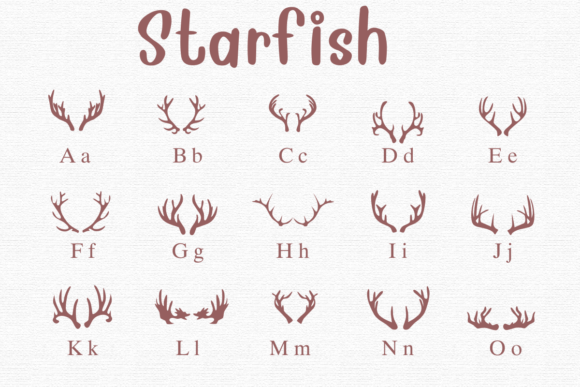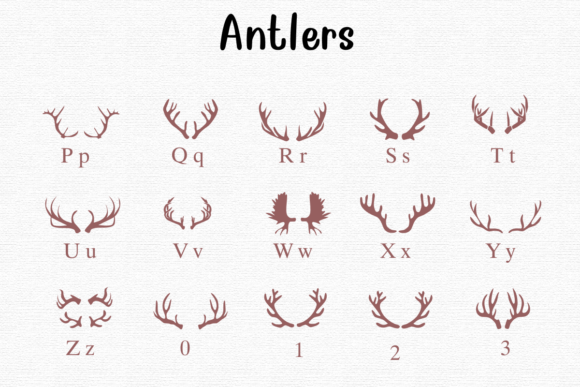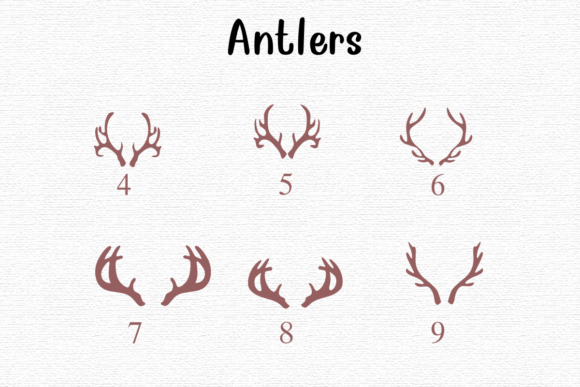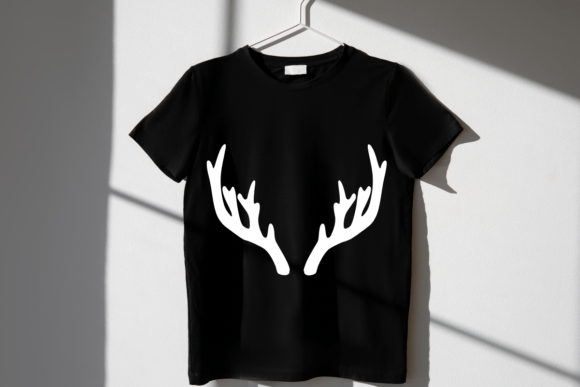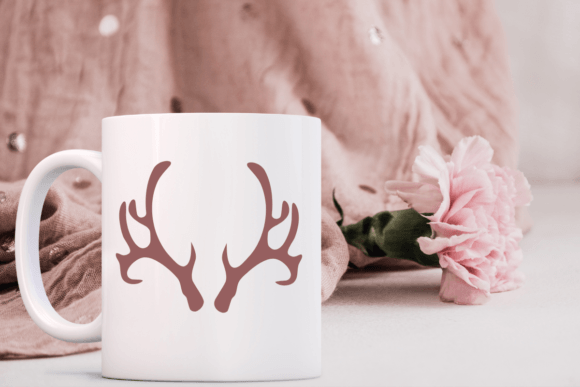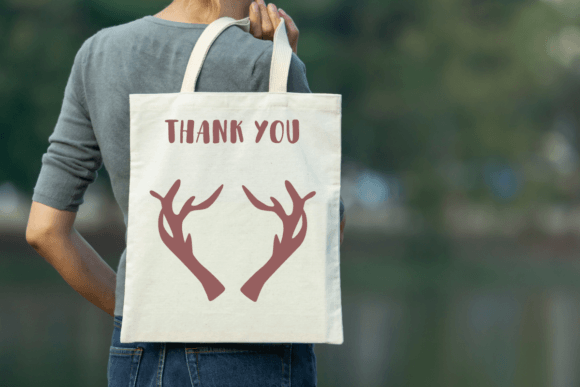
The Magical World of Antlers Font: A Designer’s Delight
I still remember the day I stumbled upon the Antlers Font while working on a nature-inspired project for a client. I was on a mission to find the perfect font that would capture the essence of the great outdoors, and boy, did I hit the jackpot! The Antlers Font, made up of intricate deer antler symbols, instantly caught my attention and sparked my creativity. In this article, I’ll share my experience with this unique font, its features, and how to make the most of it in your designs.
- Unique and eye-catching design that’s perfect for nature-inspired projects ✅
- Made up of intricate deer antler symbols that add a touch of whimsy to your designs 🌿
- Can be used to create stunning headings, titles, and even decorative borders 📚
Small Quirks and Limitations 🤔
- Limited character set, as it’s made up of symbols instead of letters and numbers ⚠️
- May not be suitable for body text or long paragraphs, as it can be a bit hard to read 📖
The Story Behind Antlers Font: A Designer’s Inspiration
The Antlers Font was inspired by the majestic deer antlers found in nature. The designer, a nature lover and outdoor enthusiast, wanted to create a font that would capture the essence of the great outdoors. With intricate details and a whimsical touch, Antlers Font was born. Today, it’s a popular choice among designers and crafters who want to add a touch of nature to their projects.
Q: What is Antlers Font made up of?
A: Antlers Font is made up of symbols that resemble deer antlers, rather than letters and numbers.
Q: Can I use Antlers Font for body text?
A: While Antlers Font can be used for body text, it may not be the most readable choice due to its unique design and limited character set.